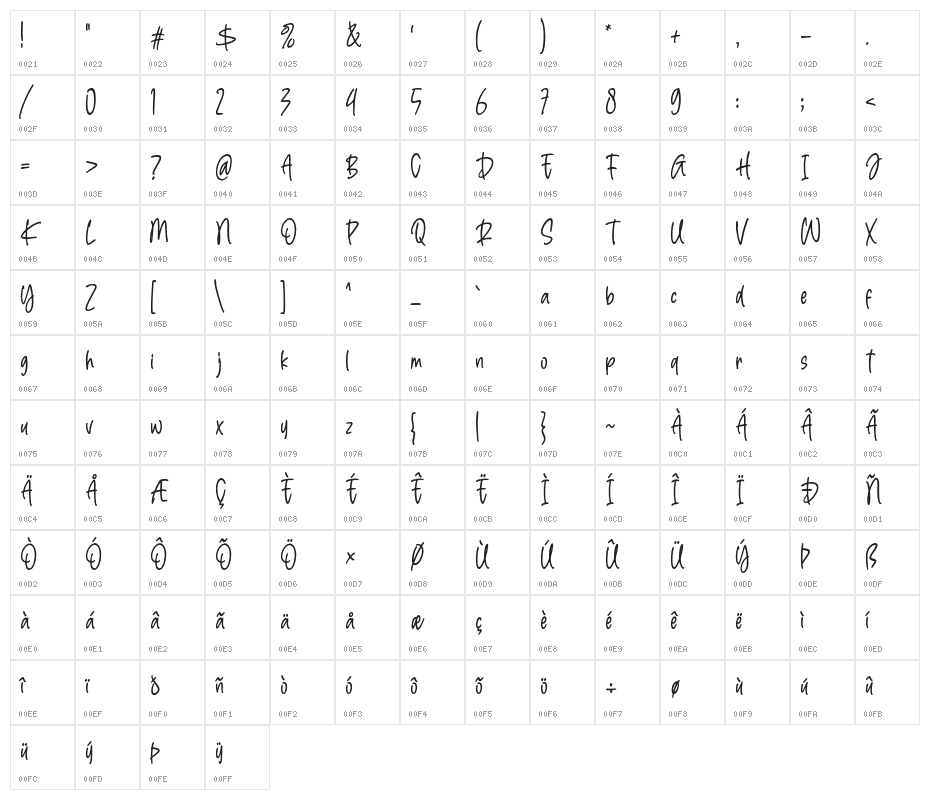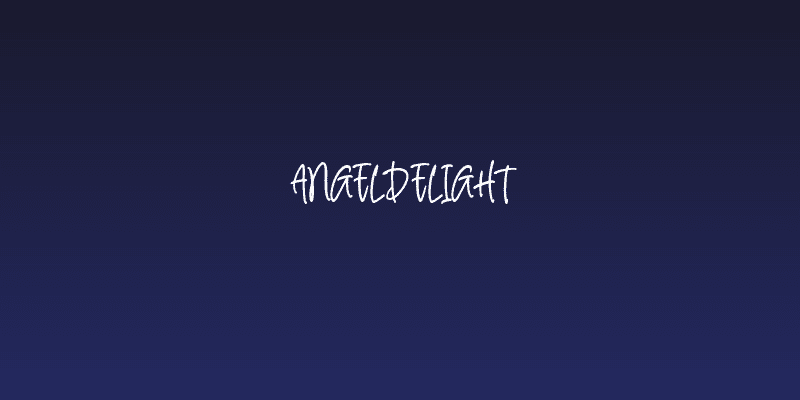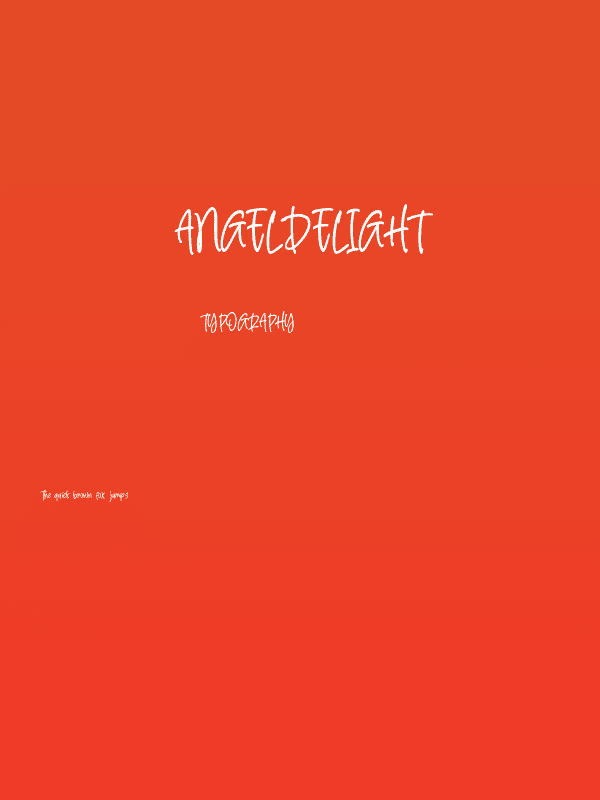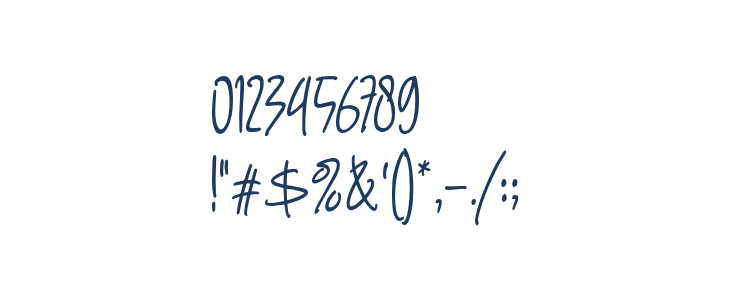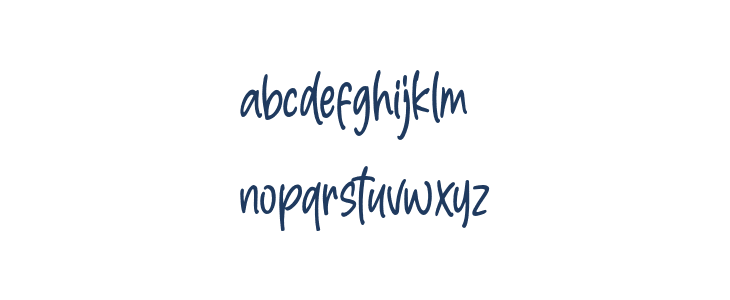
AngelDelight Font
AngelDelight Description
This font features a lively and energetic handwritten style, characterized by its fluid and dynamic strokes. The letters are slightly slanted, giving a casual and informal appearance. The uppercase letters are bold and prominent, while the lowercase letters maintain a consistent flow, enhancing readability. The numbers and special characters are well-integrated, matching the playful and spontaneous feel of the alphabet. The overall design is reminiscent of personal notes or creative journaling, making it suitable for projects that require a personal touch.
| Proposed Projects | Ideal for greeting cards, personal branding, creative journaling, and social media graphics. |